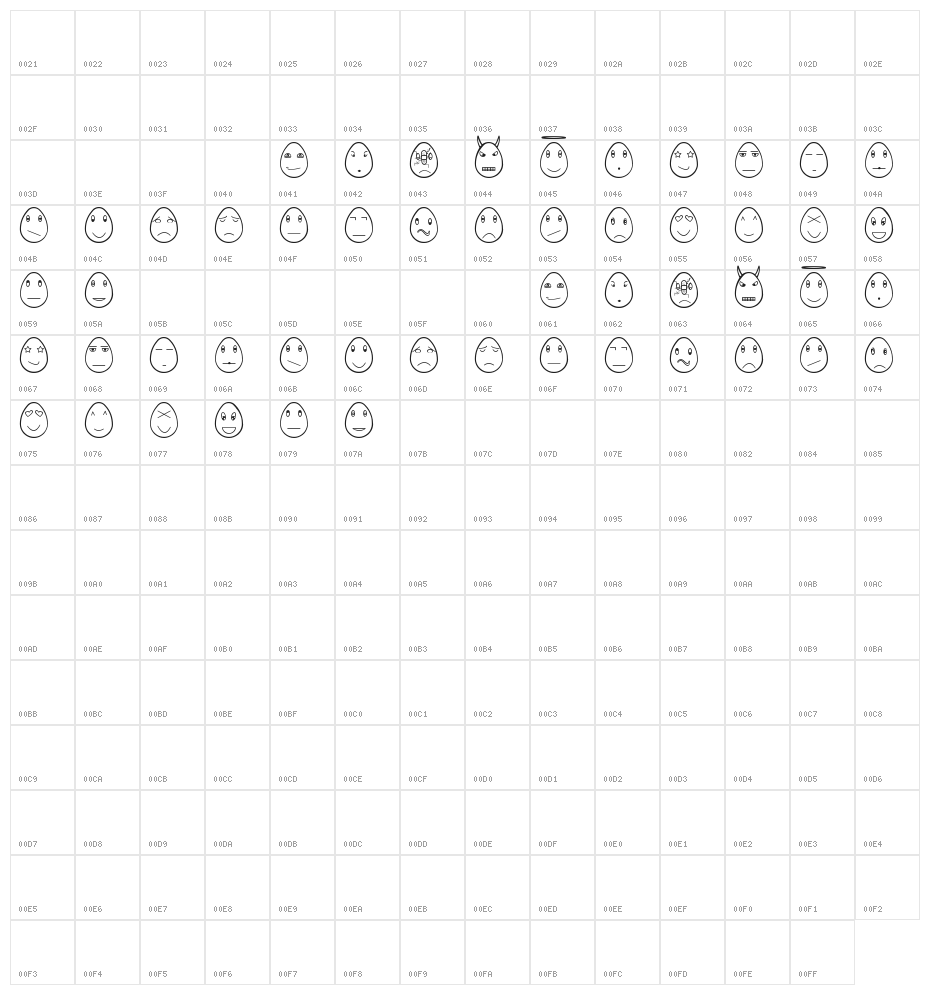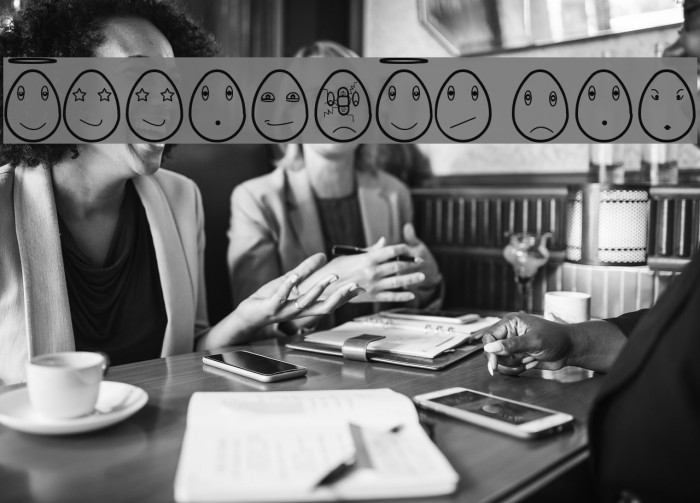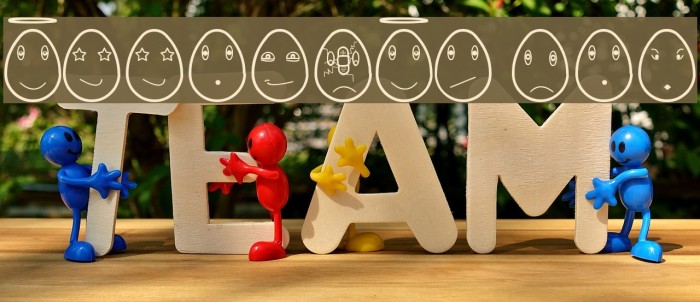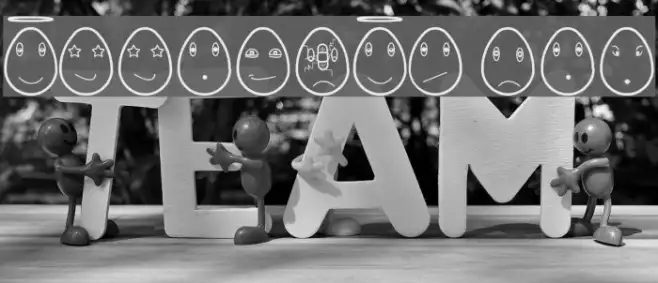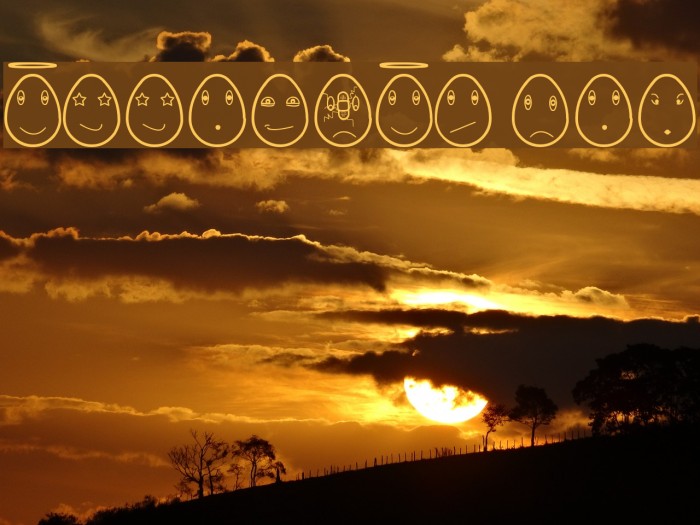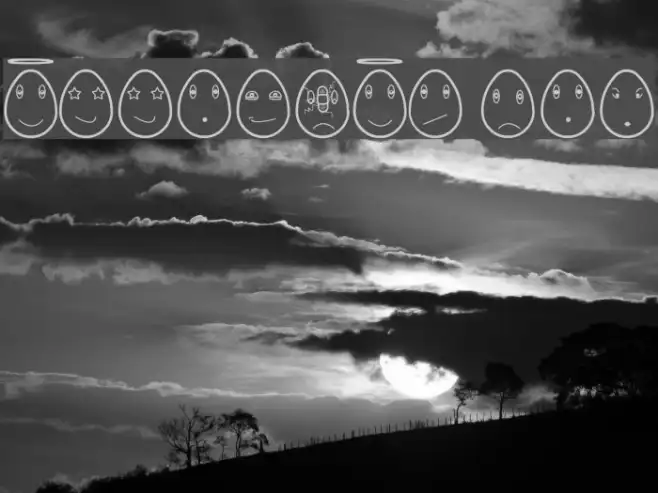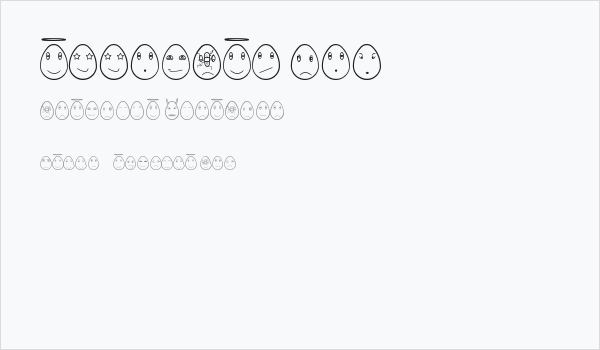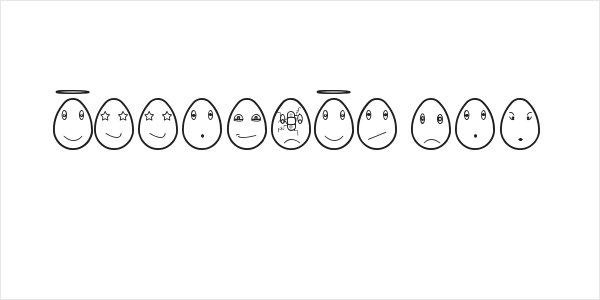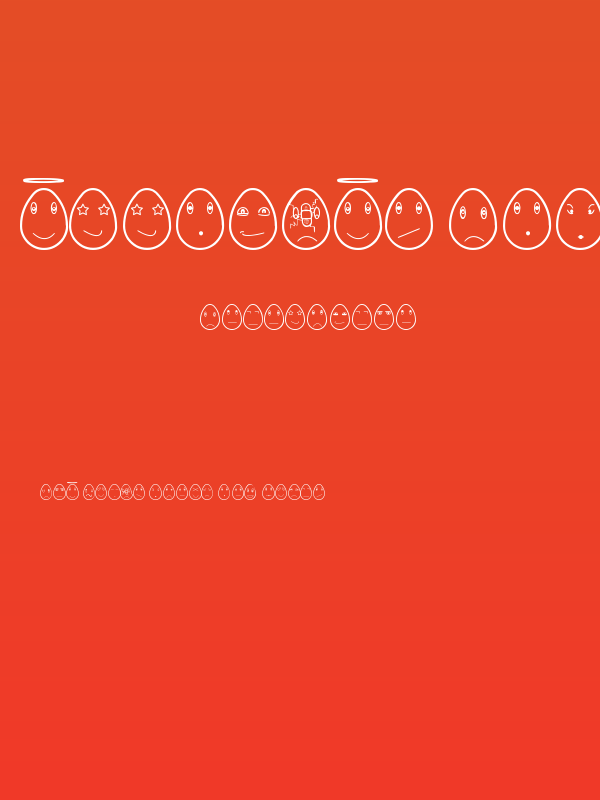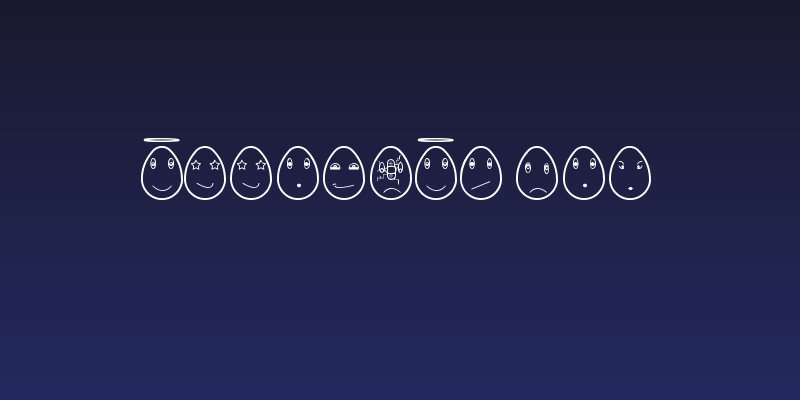
eggfaces tfb Font
eggfaces tfb Description
This is a decorative and playful font featuring a series of egg-shaped faces, each with a unique expression. The characters are designed with simple, bold lines, capturing a wide range of emotions from happy and sad to surprised and mischievous. The uniformity in shape gives it a cohesive look, while the variety in facial expressions adds a whimsical touch. This font is ideal for creative projects that require a fun and lighthearted aesthetic.
| Proposed Projects | Perfect for children's books, greeting cards, playful branding, and social media graphics. |